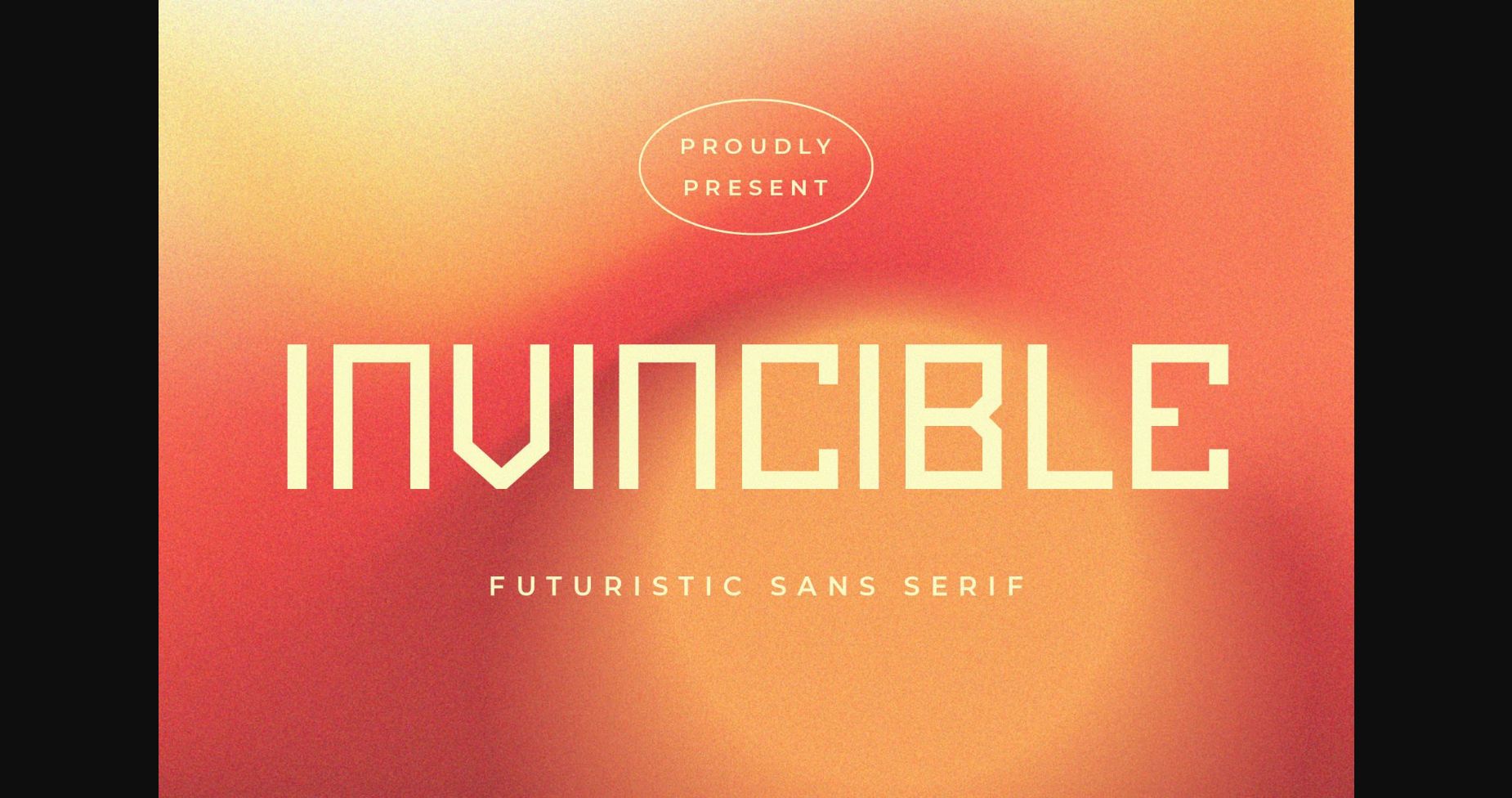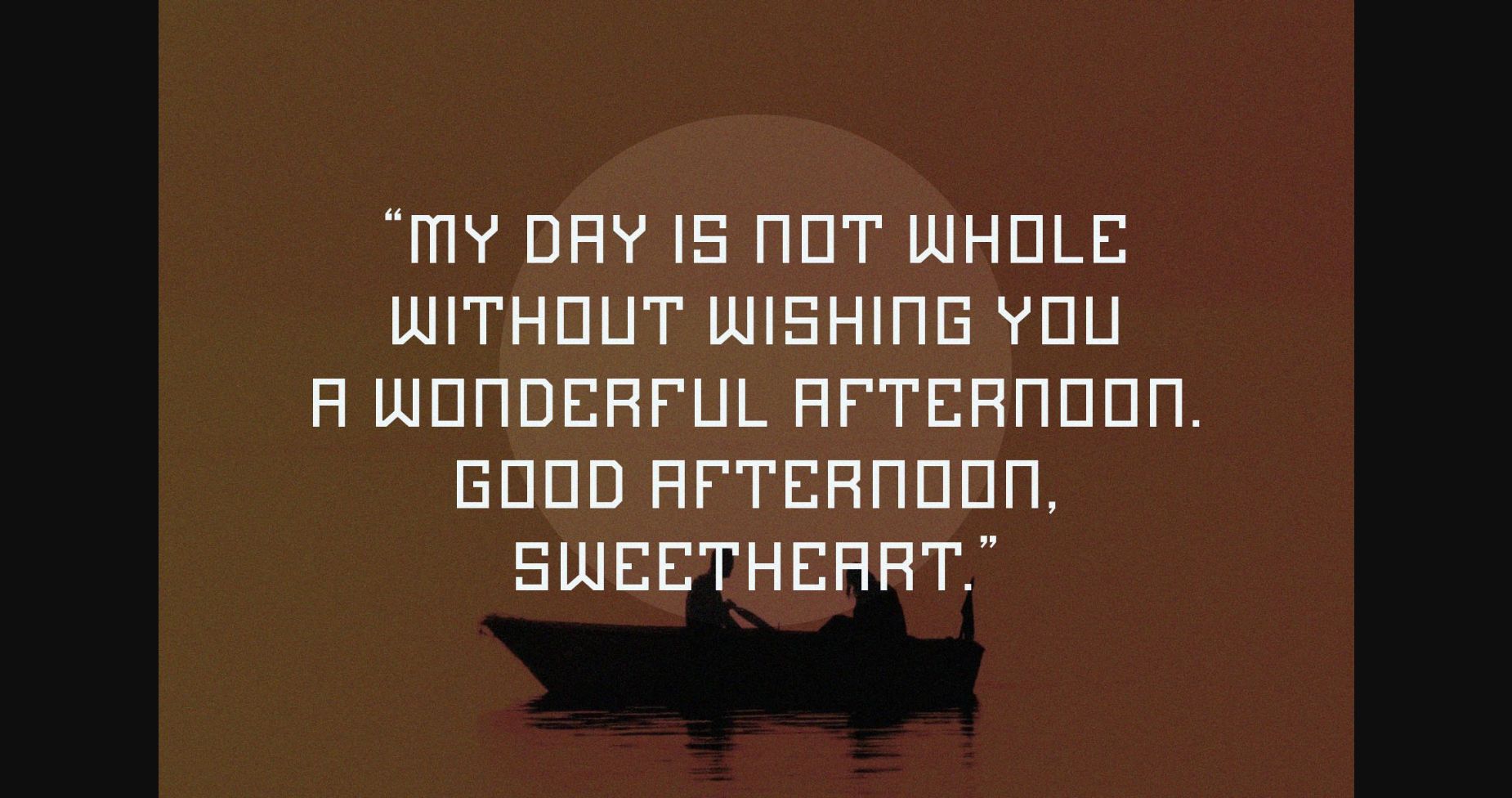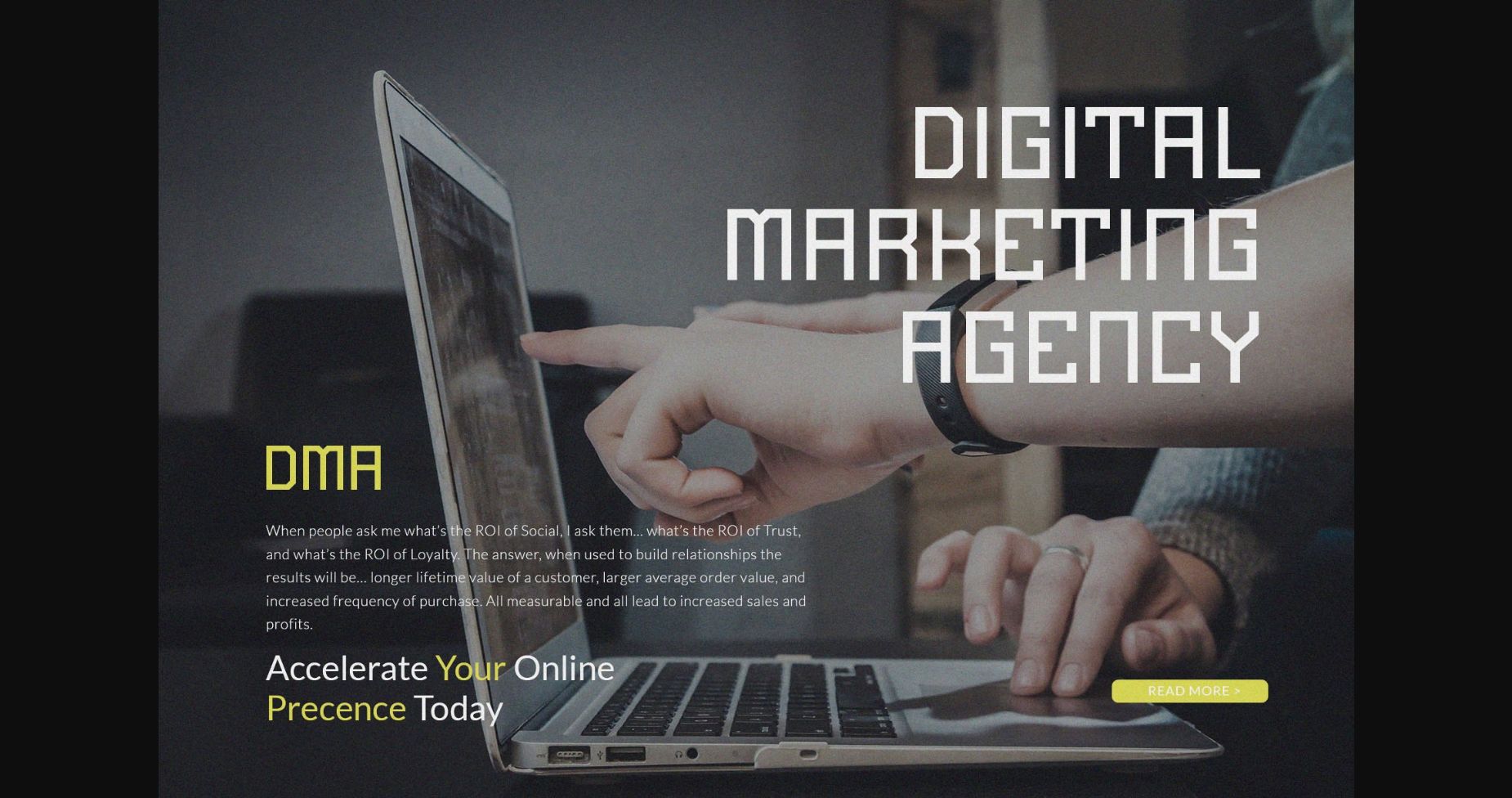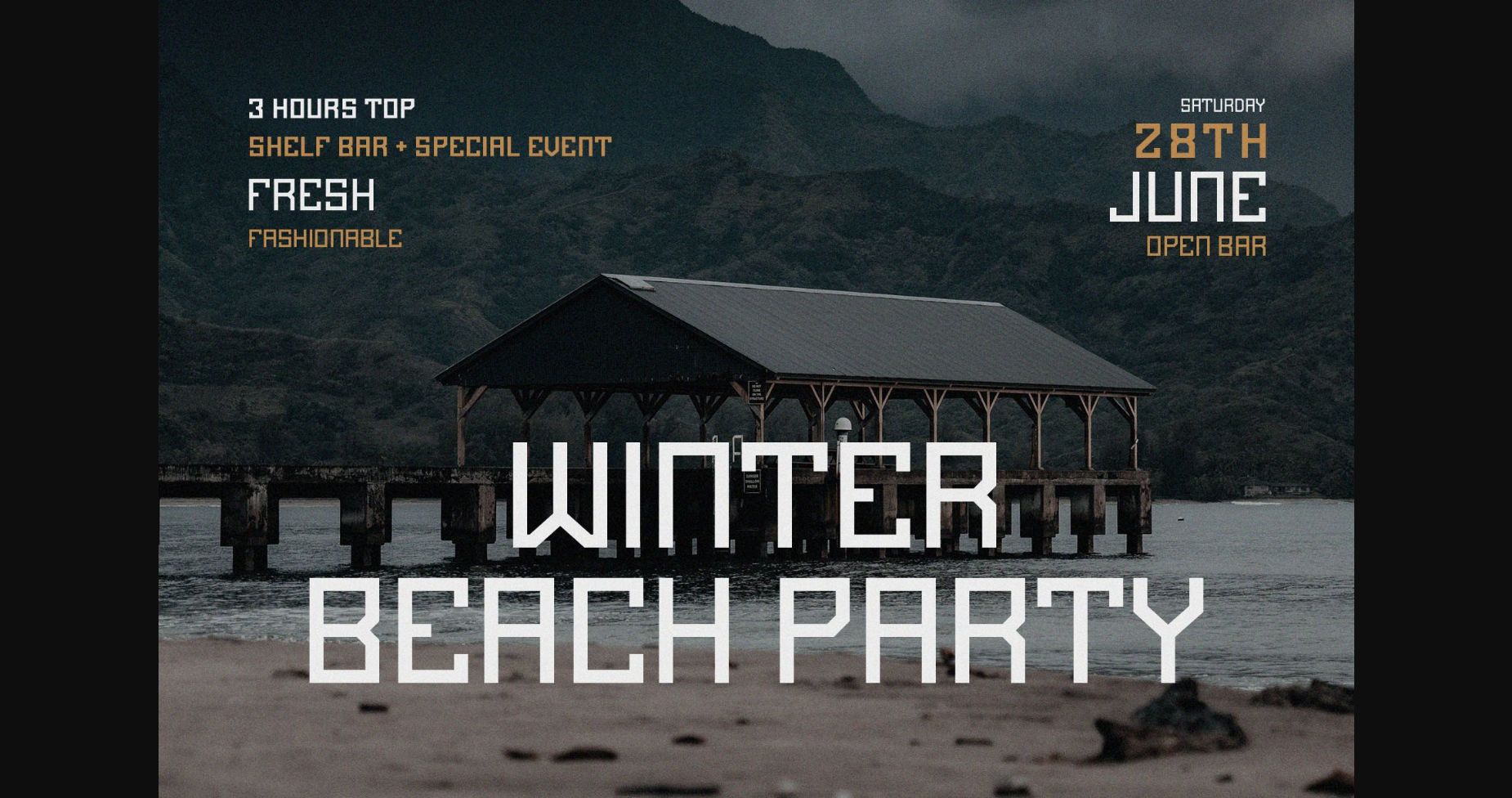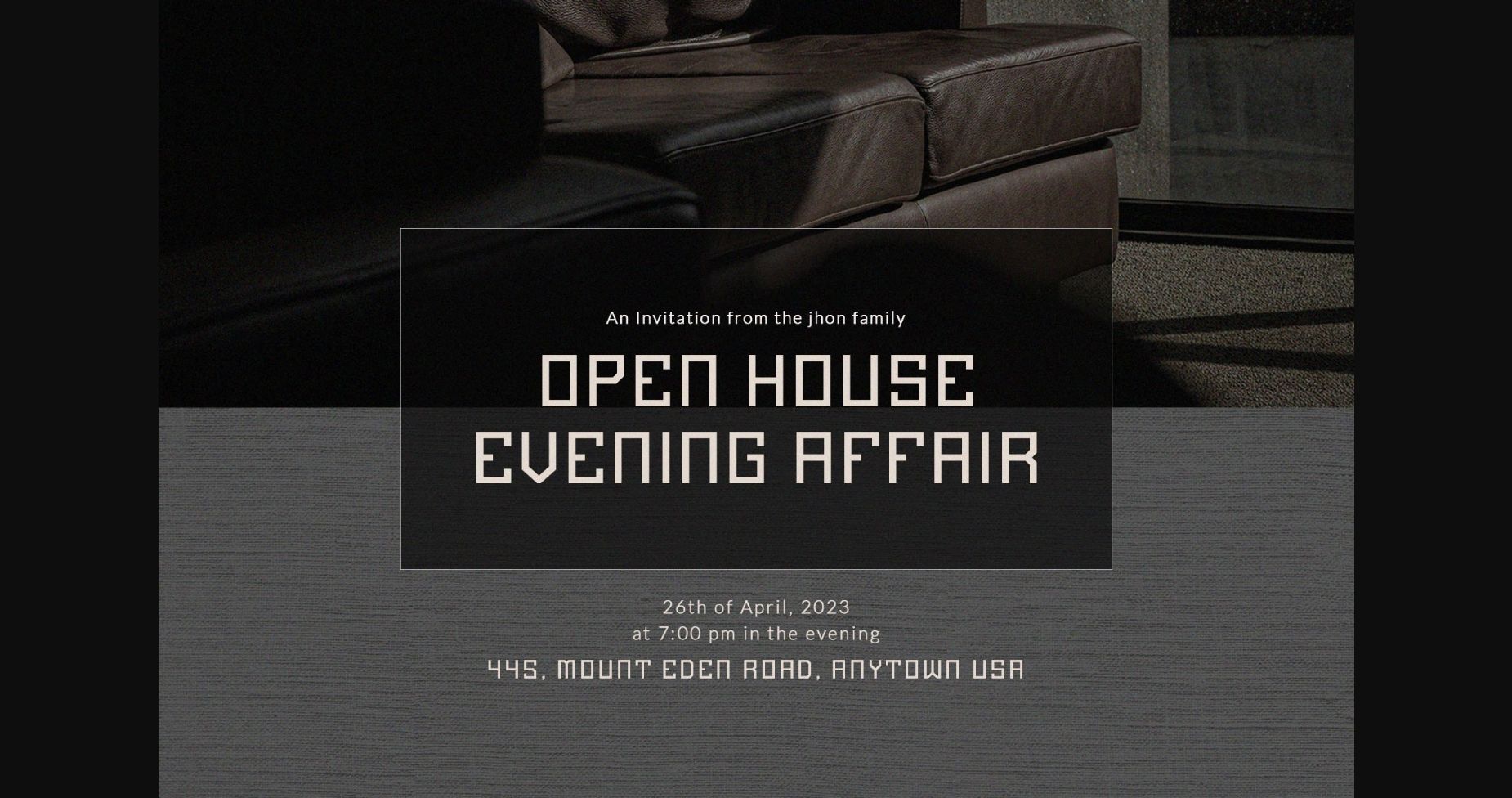
About Invincible Font
Invincible is a modern and futuristic sans serif font. Whatever the topic, this font will be a wonderful asset to your font library, as it has the potential to enhance any creation.